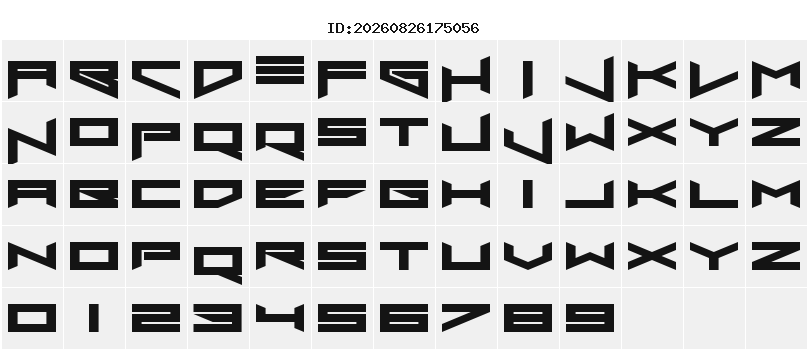
• Font Name: Xero's Proof
• Full Font Name: Xero's Proof Regular
• Designer: Andrew McCluskey
• Description: ‚ÄúXero's Proof‚Äù was built with FontStruct
About Xero's Proof.ttf
Xero's Proof.ttf is a modern, elegant sans-serif font designed for ultimate readability and visual harmony. Perfect for branding, headlines, web design, and print materials.